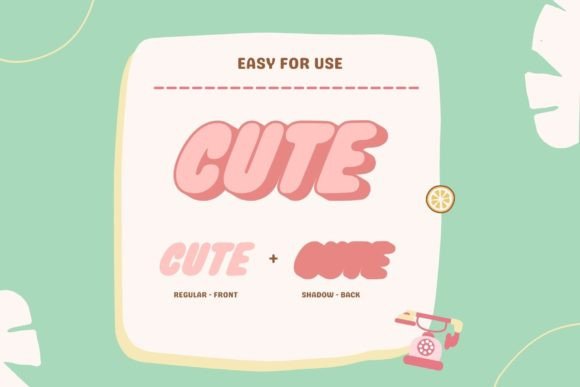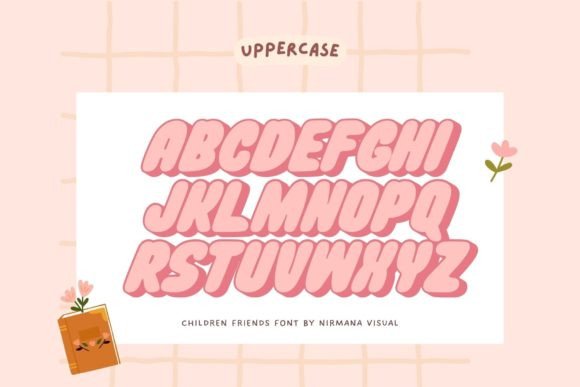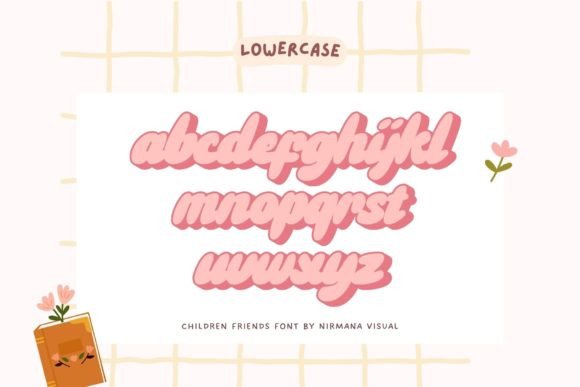
Introduction to Children Friends Font
Children Friends is a cute and friendly display font that exudes a playful and welcoming energy.
Its rounded and whimsical letterforms create a sense of approachability and warmth, making it perfect for designs that need a childlike and cheerful touch Its clean and legible style adds a charming personal feel to any project.
Key Features of Children Friends Font
Why Choose Children Friends Font?
Children Friends Font offers exceptional quality and versatility, making it a valuable addition to your design toolkit. Whether you’re creating for personal projects or commercial use, Children Friends Font delivers professional results.